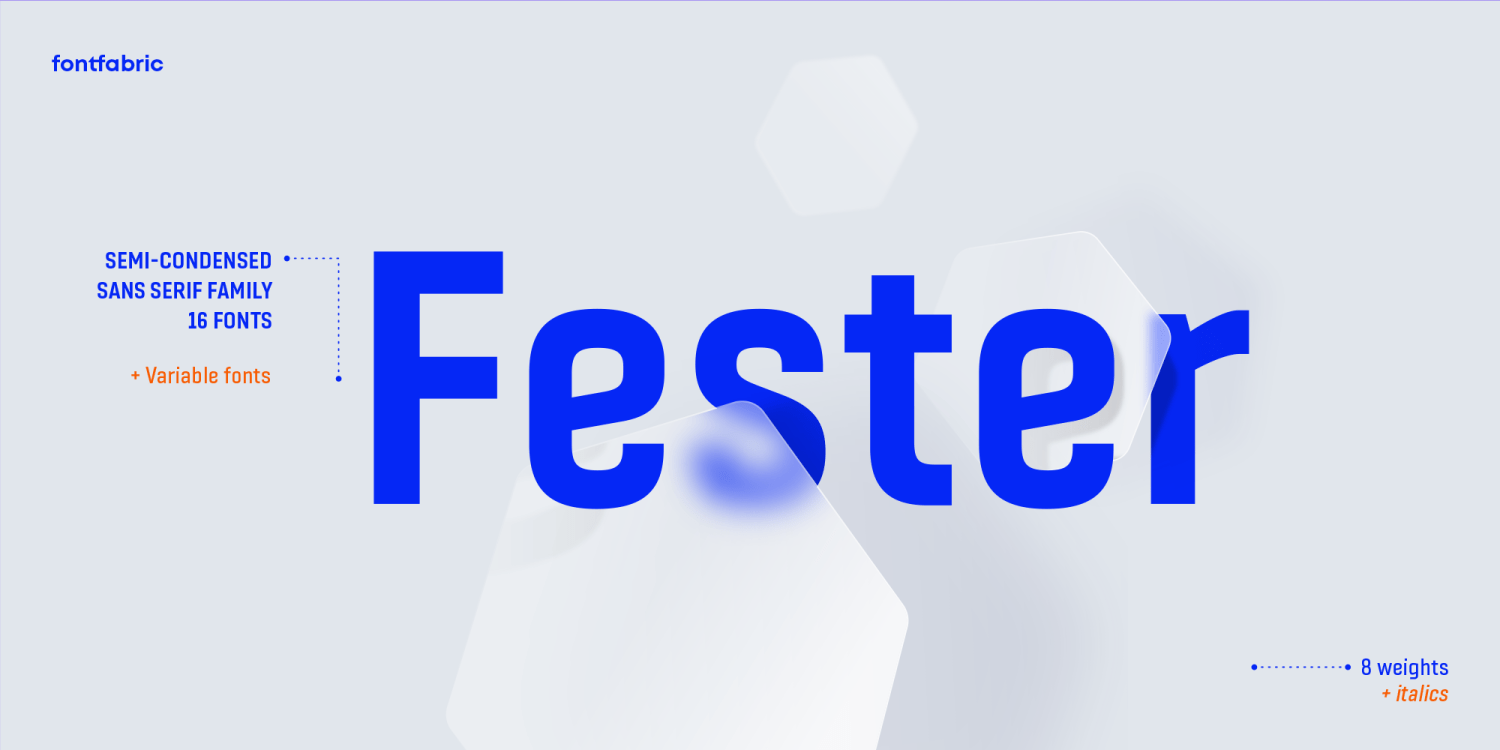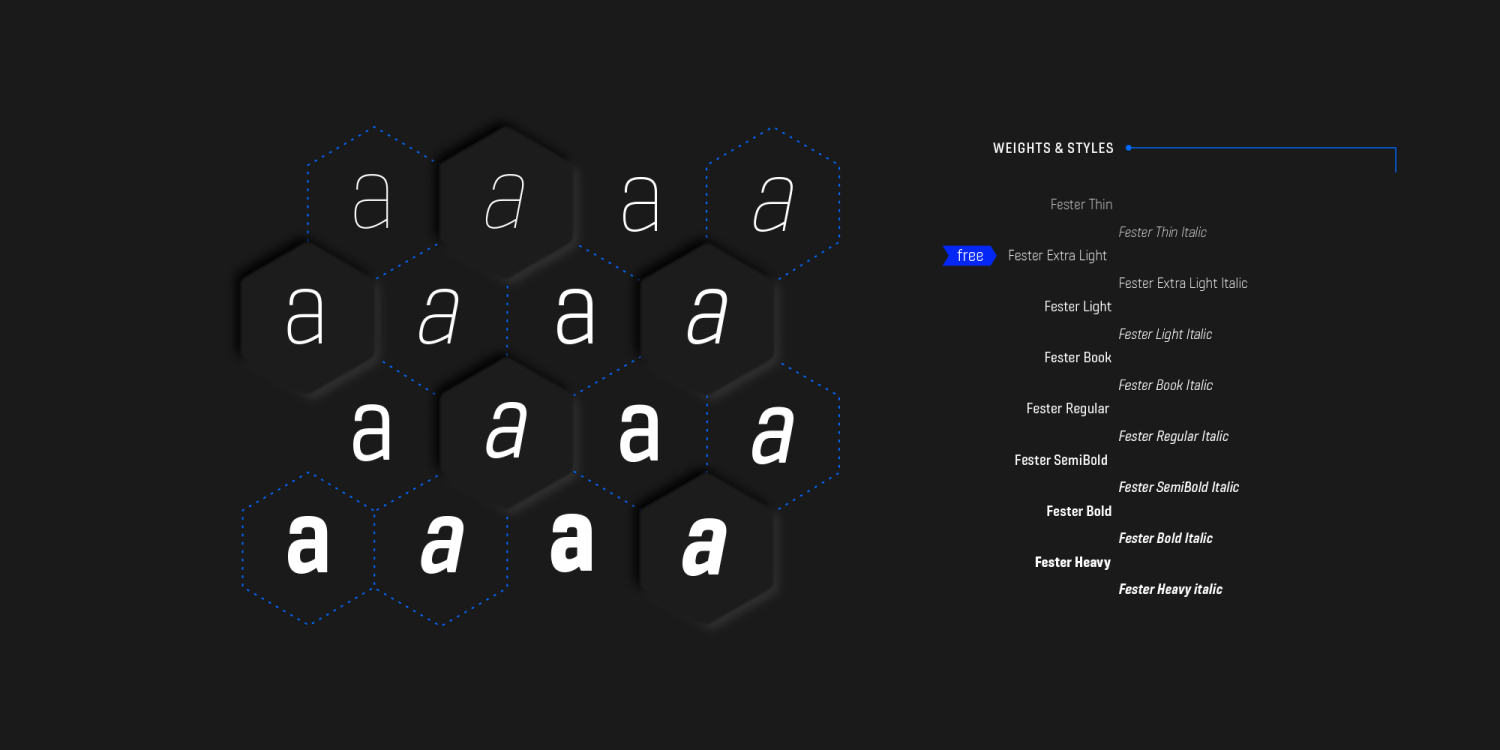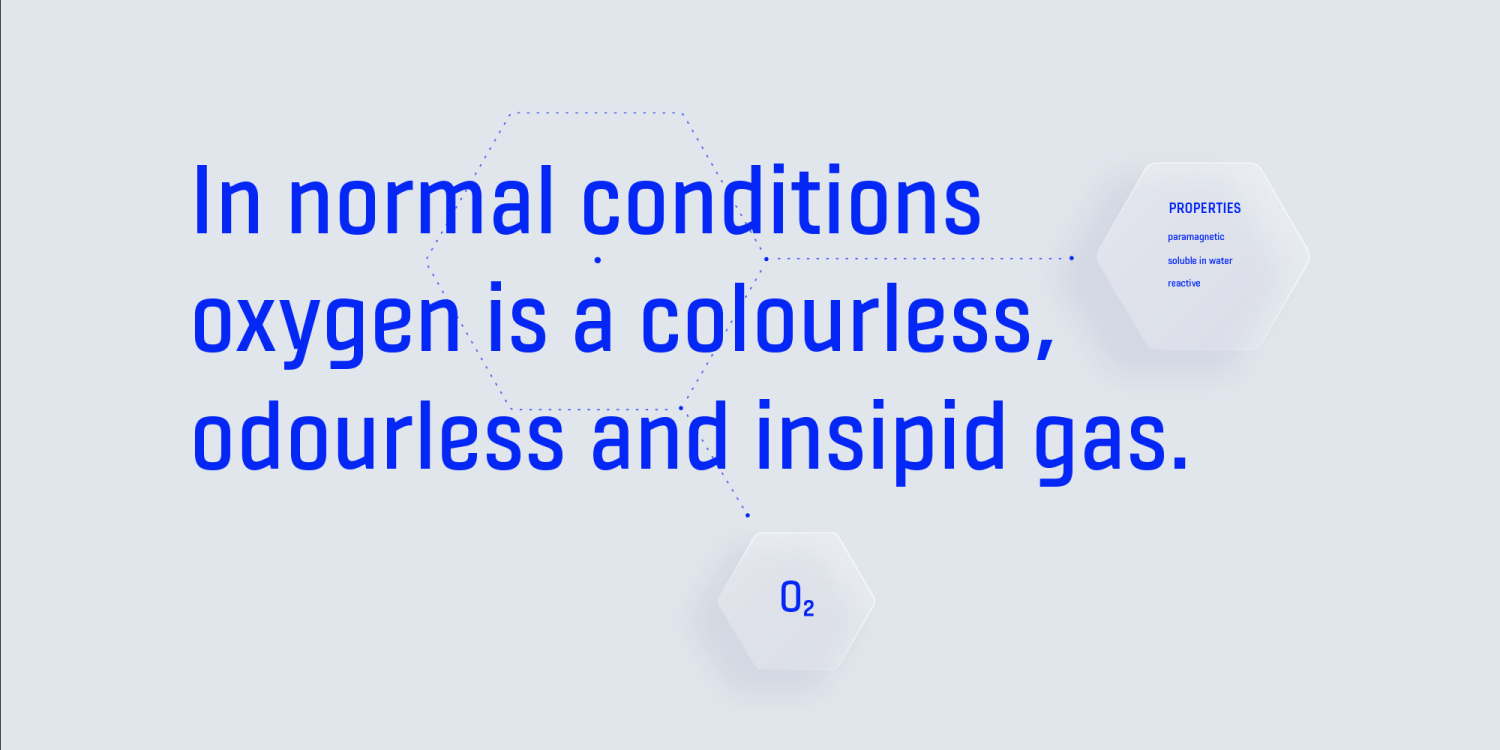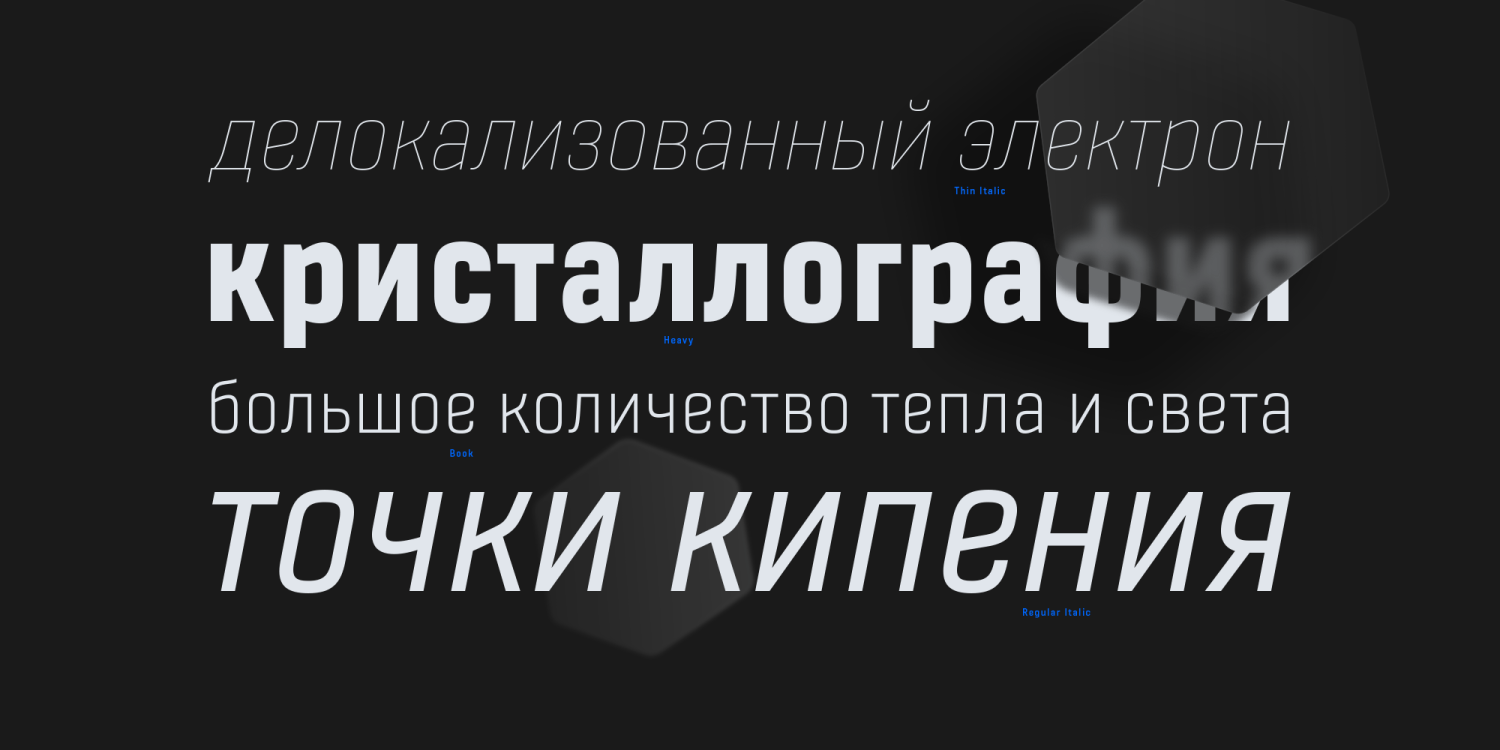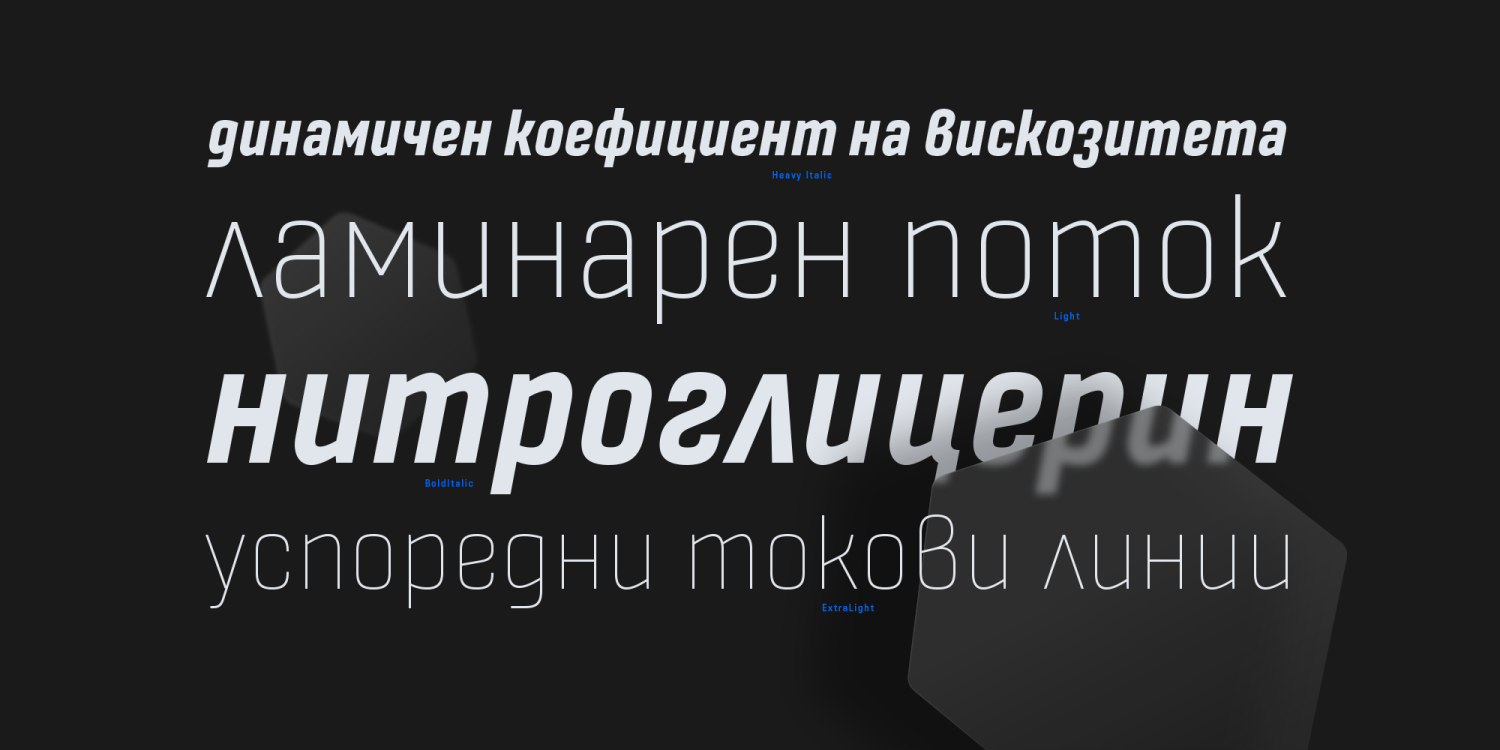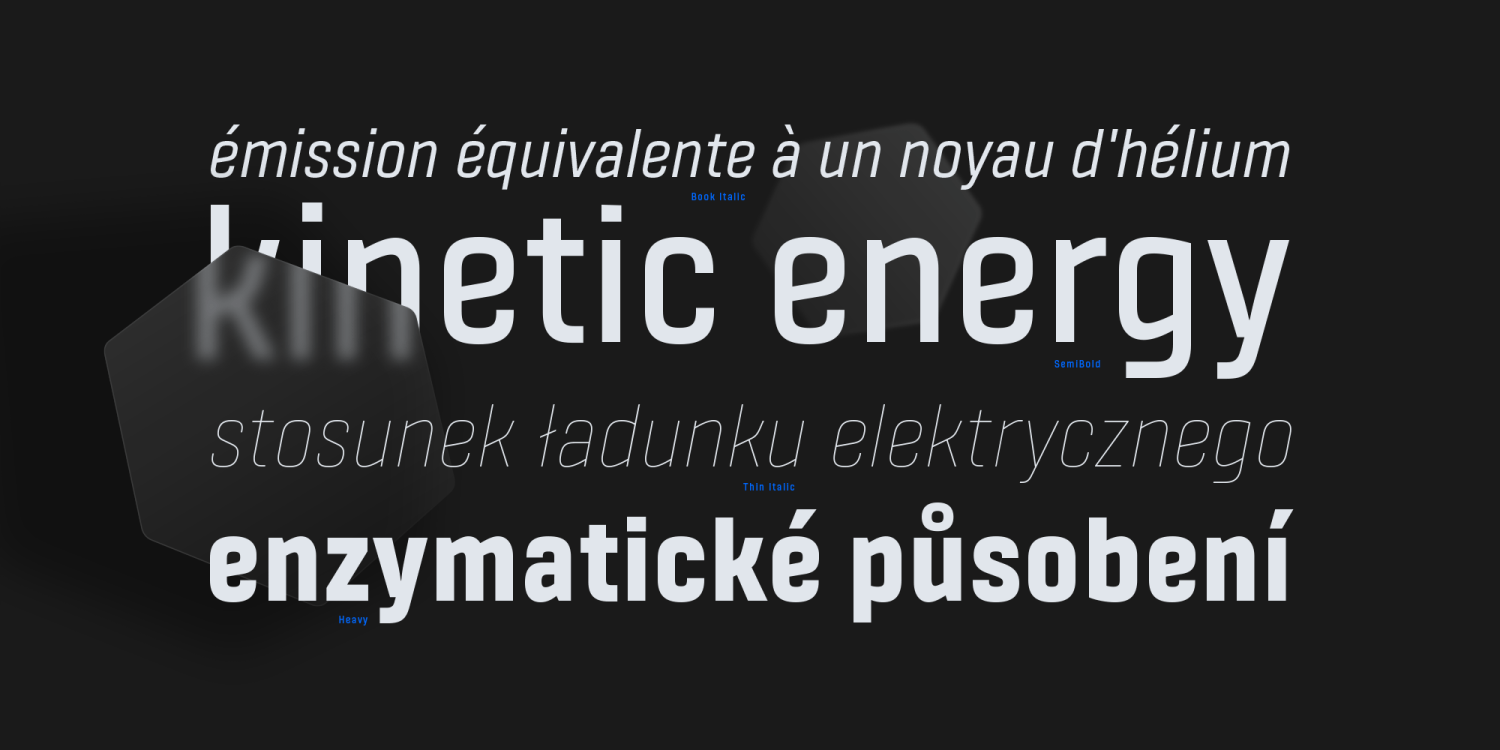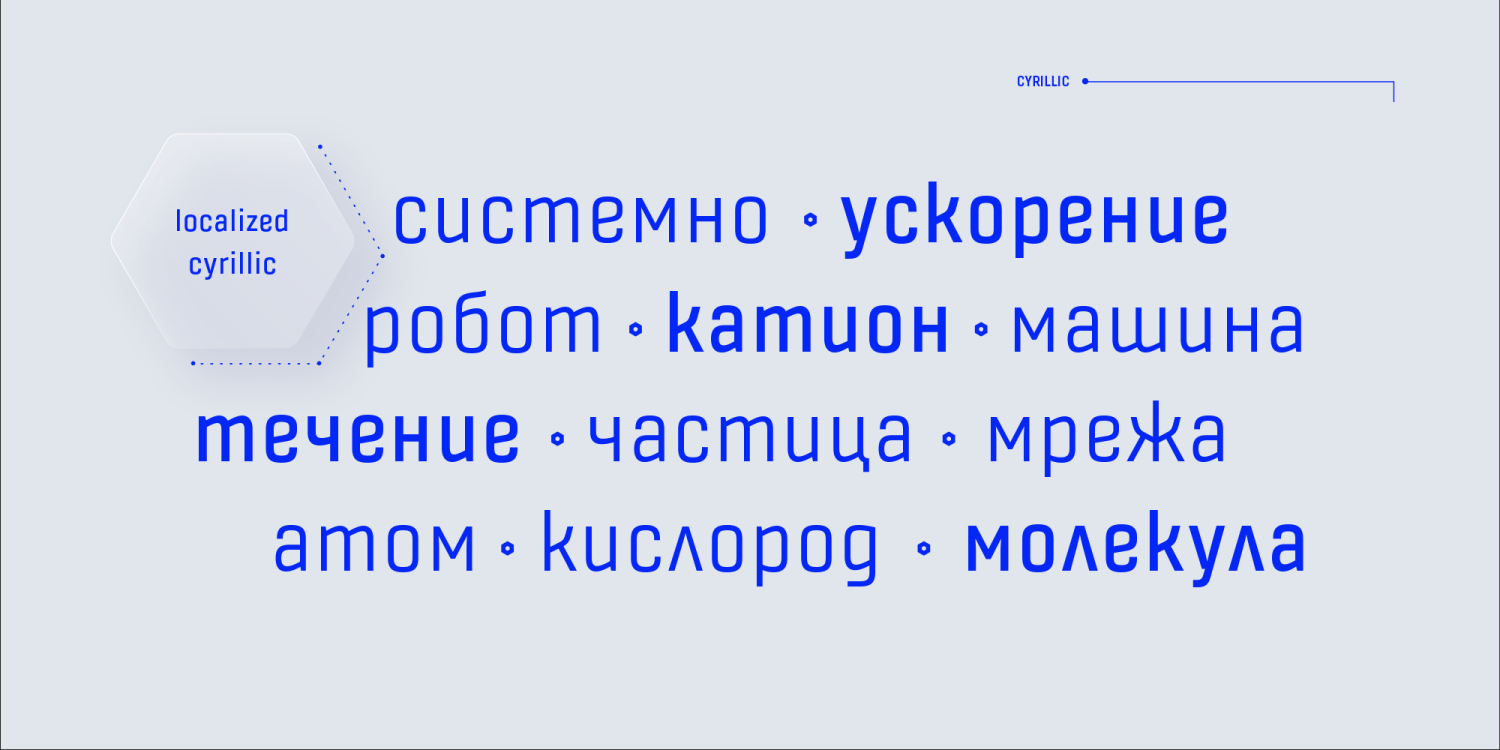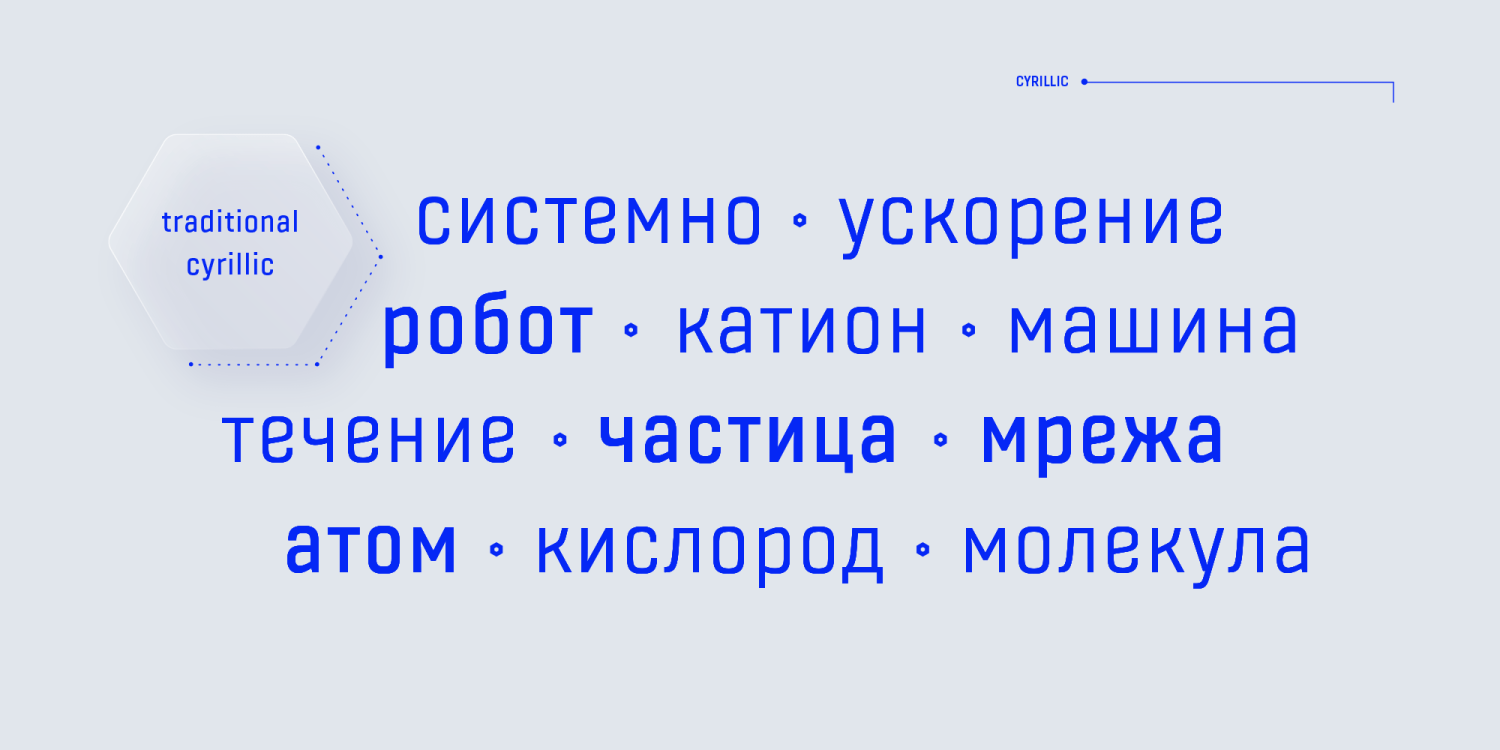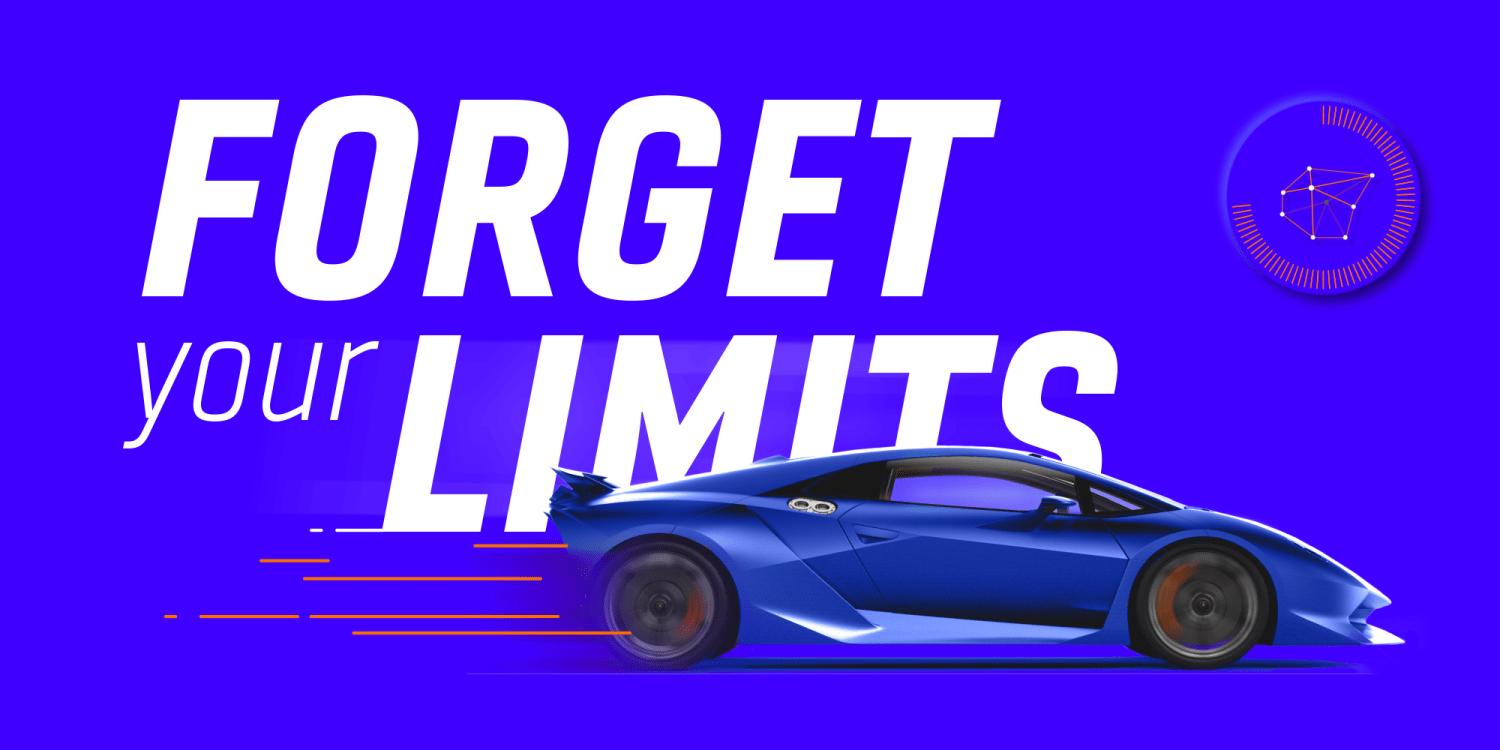
Fester
Font Family by Fontfabric
Fester is a semi-condensed grotesque that Fontfabric honed over several years before releasing it on March 8, 2022. Crafted by Svetoslav Simov, Plamen Motev, and Ventsislav Dzhokov, Fester beams clear, low-contrast letterforms into slick geometric shapes—built to shout big messages while fitting tight layouts. With a companion variable font and a 760-plus glyph set, Fester is ready to tackle futuristic editorial, interface, and branding tasks with confidence.
Why Choose Fester?
Fester is a Sans-Serif typeface designed for headlines, branding, UI/UX, posters, and packaging. Its four-square geometry with sharp terminals and unexpected angles makes it an excellent choice for designers who need a space-efficient sans with future-forward personality.
With a total of 16 styles, advanced OpenType features, and extensive multilingual support, Fester ensures versatility and high-quality typography for every project.
Key Specifications of Fester
This font provides:
• Eight carefully spaced weights maintain clarity from Thin to Heavy
• Variable font for responsive typography and animation
• 760+ glyphs covering 130+ languages (Extended Latin & Cyrillic)